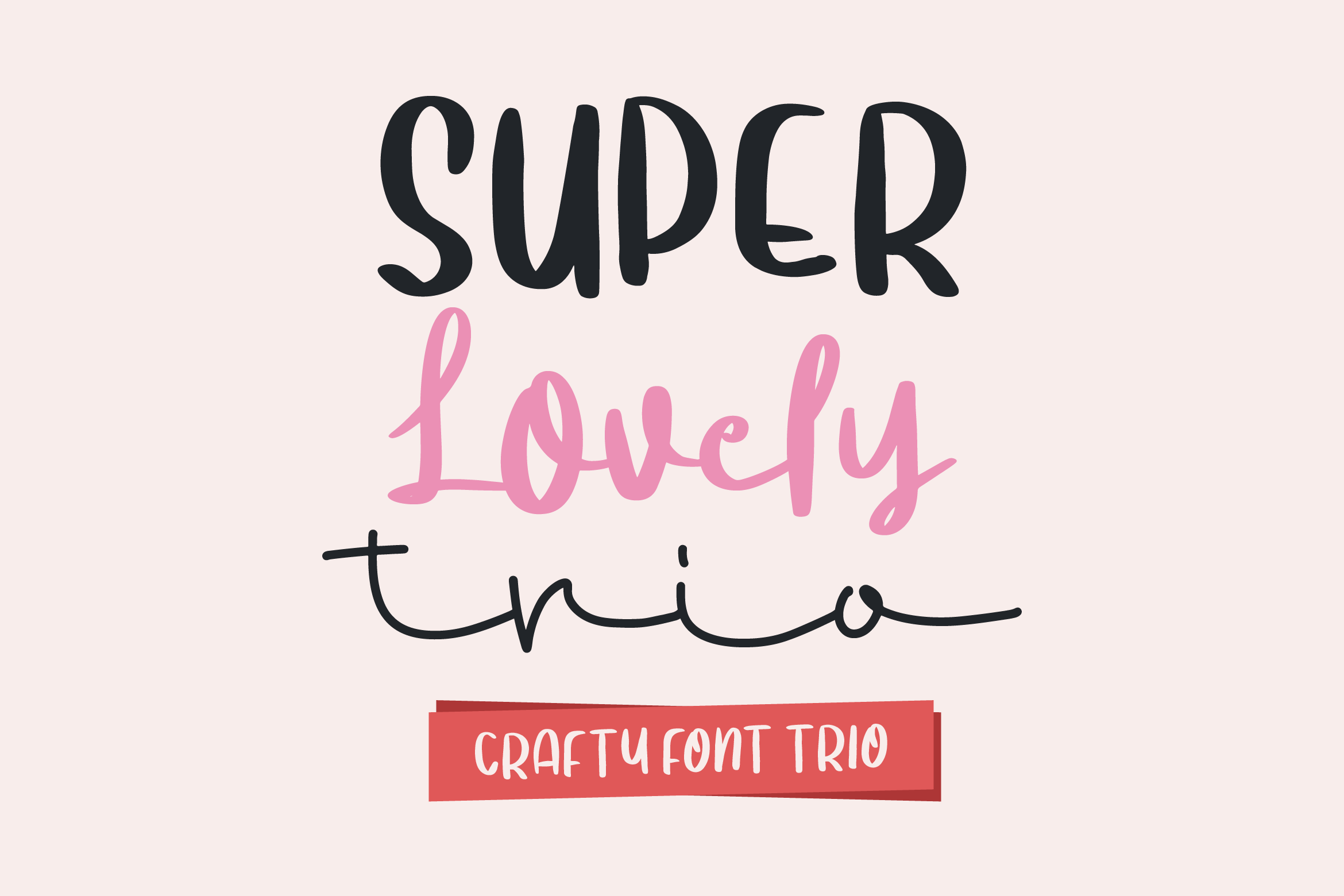
Super Lovely Trio Font
About Super Lovely Trio
Super Lovely Trio is a cute and relaxed trio styled handwritten font. Its natural and unique style makes it suitable for a variety of design ideas. Add it confidently to your projects, and you will love the results.
Super Lovely Trio is perfect for branding projects, logo, wedding designs, social media posts, advertisements, product packaging, product designs, label, photography, watermark, invitation, stationery and any projects that need handwriting taste.